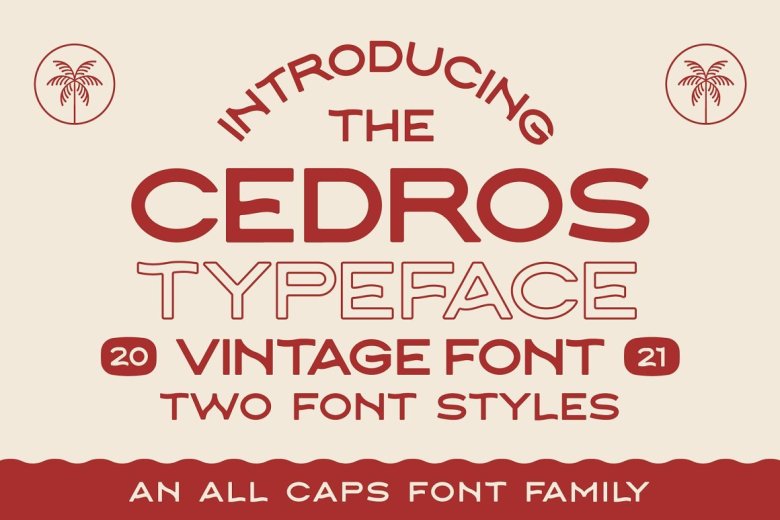
Cedros Font
Cedros is a sans serif display font created by Adam Nienow with simple and geometric lines making it look modern and sleek. Good to use for covering your Project, like Branding, Your Logos, Headline Letter, Bookcover or Book Content, Magazine cover, Poster, Quotes Lettering, and more your project design.